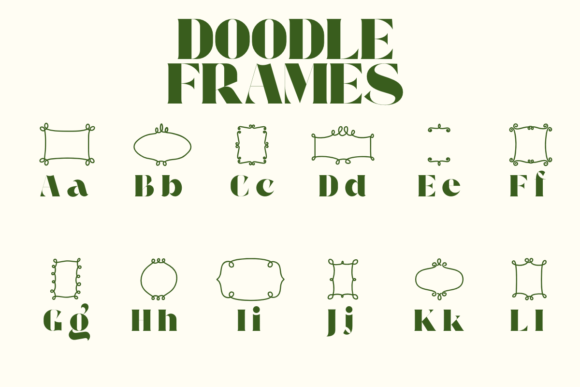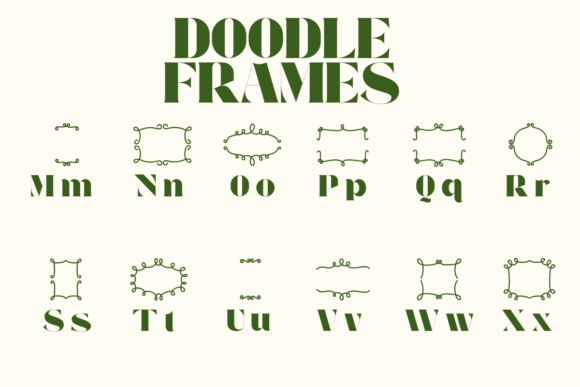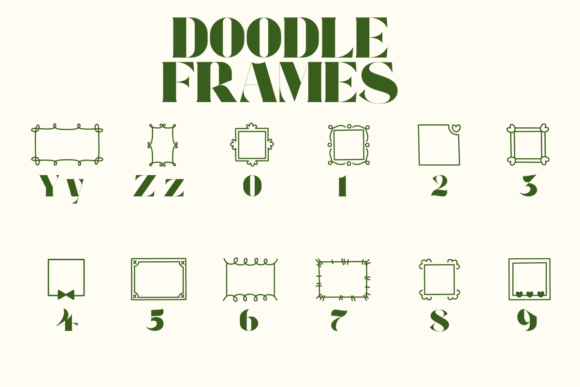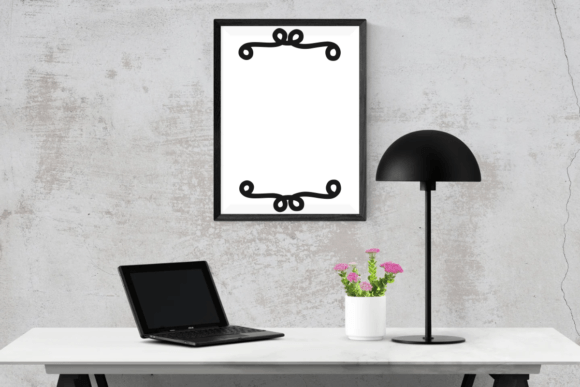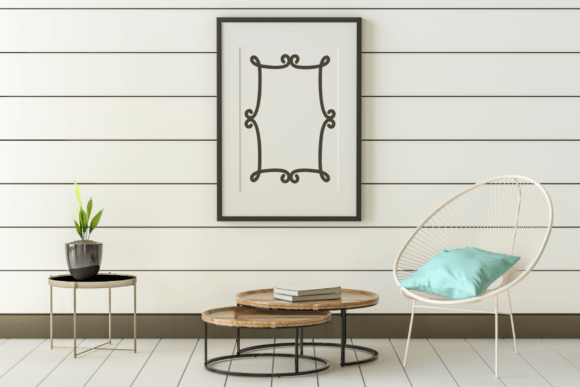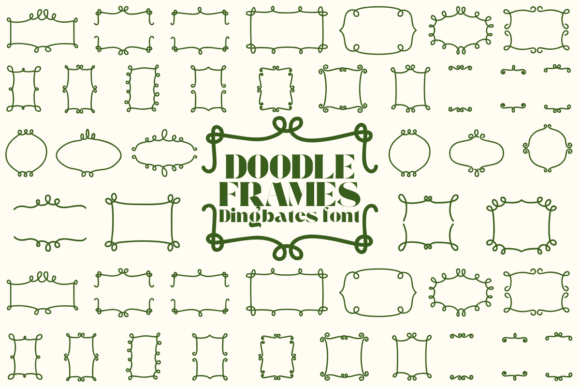
Doodle Frames Font: Unleash Your Creativity with this Sketchy Dingbats Font
Are you a designer, crafter, or DIY enthusiast looking for a unique and creative way to add a personal touch to your projects? Look no further than the Doodle Frames Font, a dingbats font with a charming sketch style that’s perfect for a wide range of creative applications. In this article, we’ll explore the features and benefits of Doodle Frames, and show you how this versatile font can enhance your wedding invitations, DIY projects, crafts, decorations, logos, and more.
What is Doodle Frames Font?
Doodle Frames is a dingbats font that features a delightful sketch style, characterized by playful, hand-drawn illustrations and frames. This font is specifically designed to add a touch of whimsy and personality to your creative projects, making it perfect for those who want to stand out from the crowd. With Doodle Frames, you can add a dash of creativity to your designs, and bring your ideas to life in a fun and imaginative way.
Key Features of Doodle Frames Font
- Sketch Style: Doodle Frames features a charming sketch style that’s reminiscent of hand-drawn illustrations.
- Dingbats Font: This font is a dingbats font, which means it’s comprised of illustrations and symbols rather than traditional letters and numbers.
- Playful and Whimsical: Doodle Frames is designed to add a touch of playfulness and whimsy to your designs, making it perfect for creative projects.
- Versatile: This font can be used for a wide range of applications, from wedding invitations to DIY projects, crafts, decorations, logos, and more.
Creative Applications for Doodle Frames Font
Doodle Frames is an incredibly versatile font that can be used for a wide range of creative applications. Here are just a few ideas to get you started:
- Wedding Invitations: Add a touch of whimsy and romance to your wedding invitations with Doodle Frames.
- DIY Projects: Use Doodle Frames to add a personal touch to your DIY projects, such as scrapbooking, card making, and more.
- Crafts: This font is perfect for crafters who want to add a creative touch to their projects, such as knitting, sewing, and more.
- Decorations: Use Doodle Frames to create custom decorations, such as garlands, banners, and more.
- Logos: This font can also be used to create unique and creative logos for businesses, events, and more.
Tips for Using Doodle Frames Font
Here are a few tips for getting the most out of Doodle Frames:
- Experiment with Colors: Doodle Frames looks great in a variety of colors, so don’t be afraid to experiment and find the perfect hue for your project.
- Mix and Match: Combine Doodle Frames with other fonts and illustrations to create a unique and eye-catching design.
- Use as a Background: Use Doodle Frames as a background element to add texture and interest to your design.
- Customize: Don’t be afraid to customize Doodle Frames to fit your project’s needs, such as resizing or recoloring the illustrations.
Doodle Frames is a unique and versatile dingbats font that’s perfect for designers, crafters, and DIY enthusiasts who want to add a touch of creativity to their projects. With its charming sketch style and playful illustrations, this font is sure to inspire your next creative project. Whether you’re creating wedding invitations, DIY projects, crafts, decorations, logos, or more, Doodle Frames is the perfect choice. So why wait? Download Doodle Frames today and start unleashing your creativity!